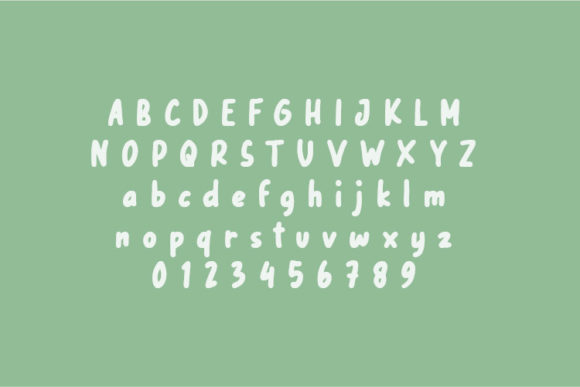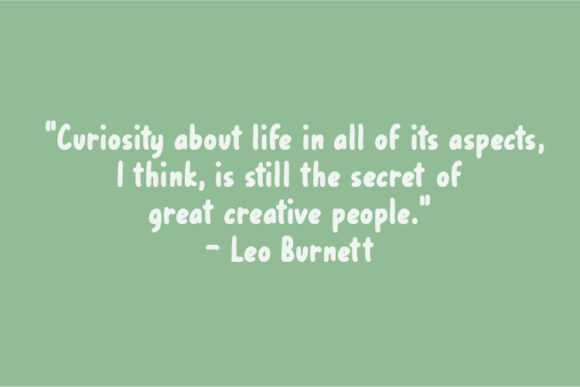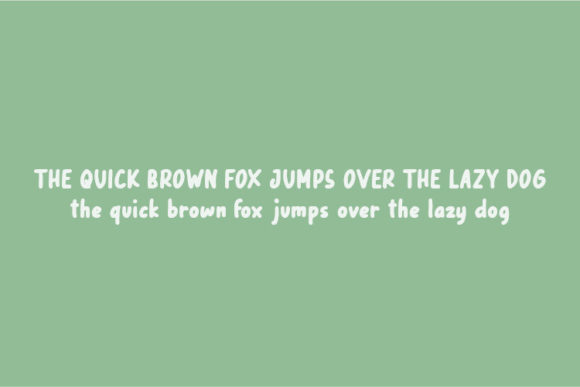
Introduction to Pitbull Font
Pitbull is a friendly and well-rounded sans serif font, suitable for various creative designs.
Use it for logos, branding, name tags, book covers, posters, banners, apparel designs, and so much more .
Key Features of Pitbull Font